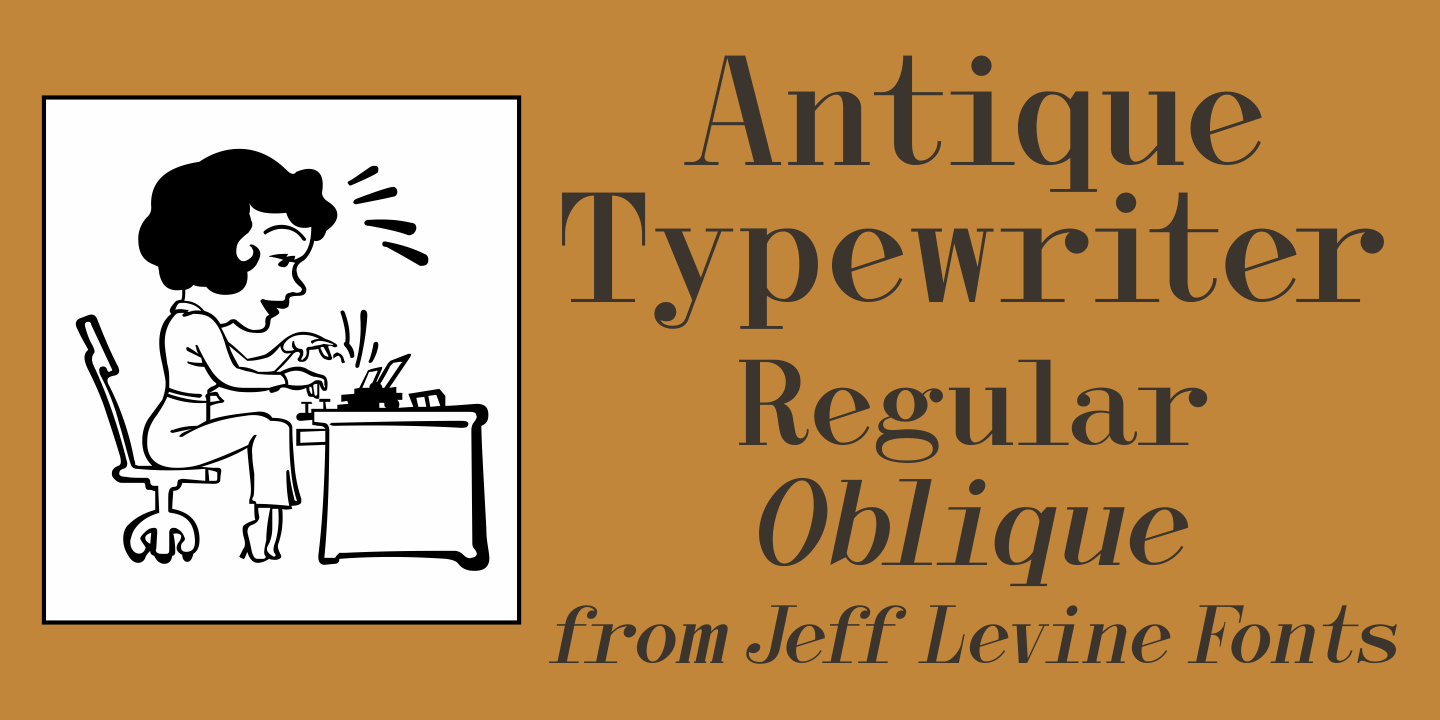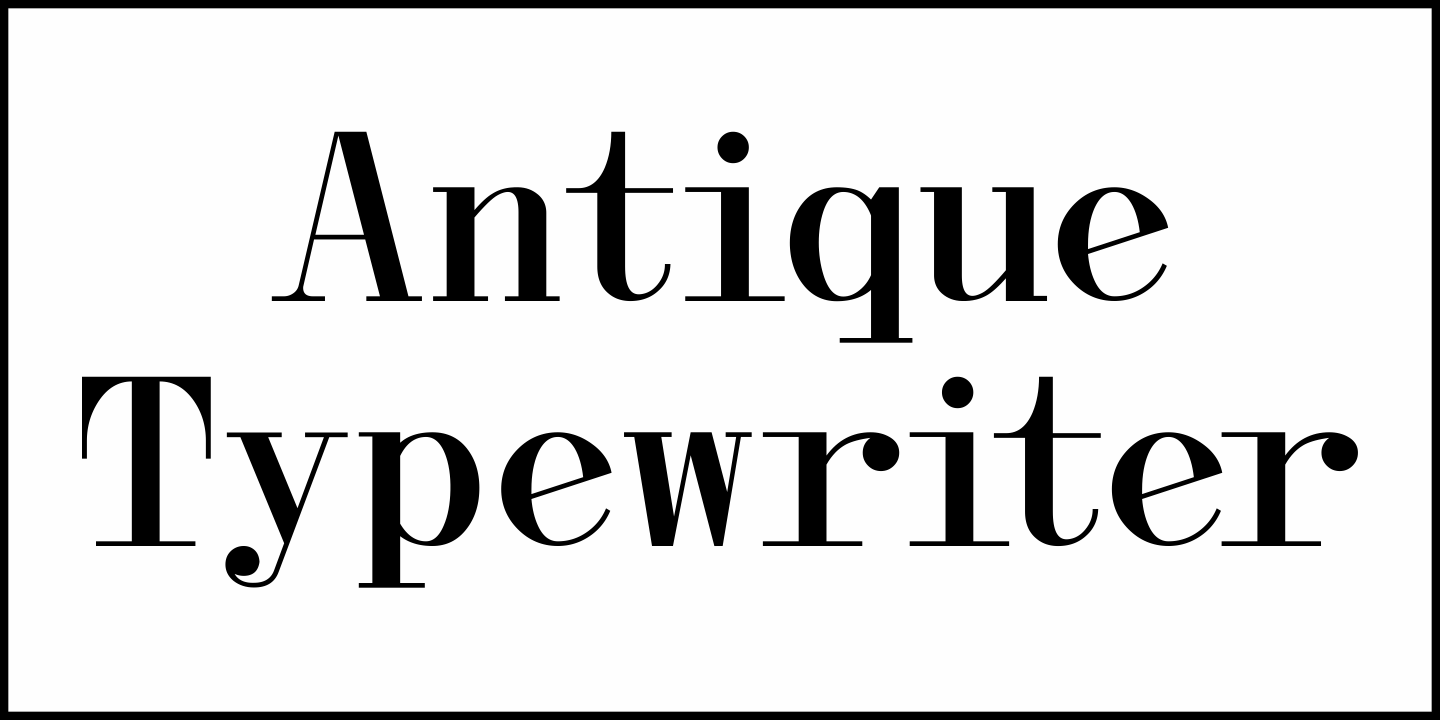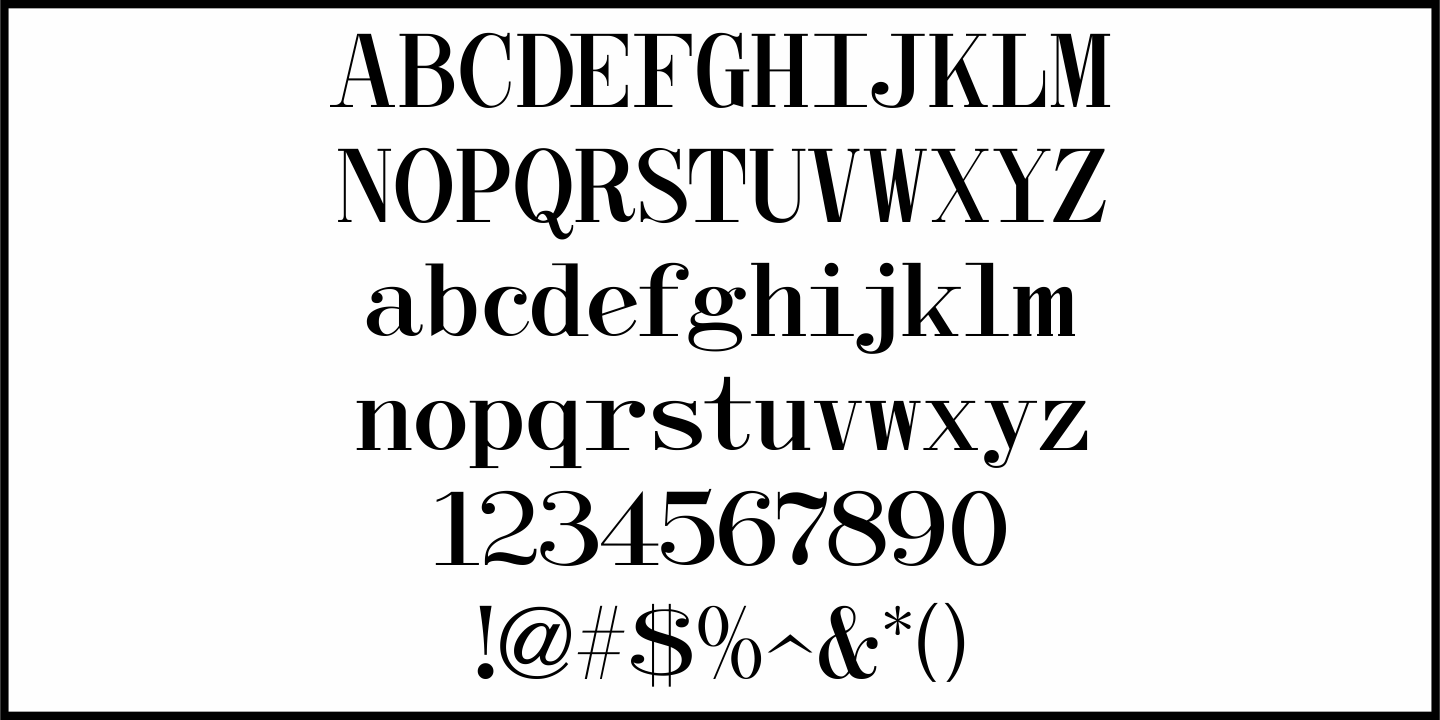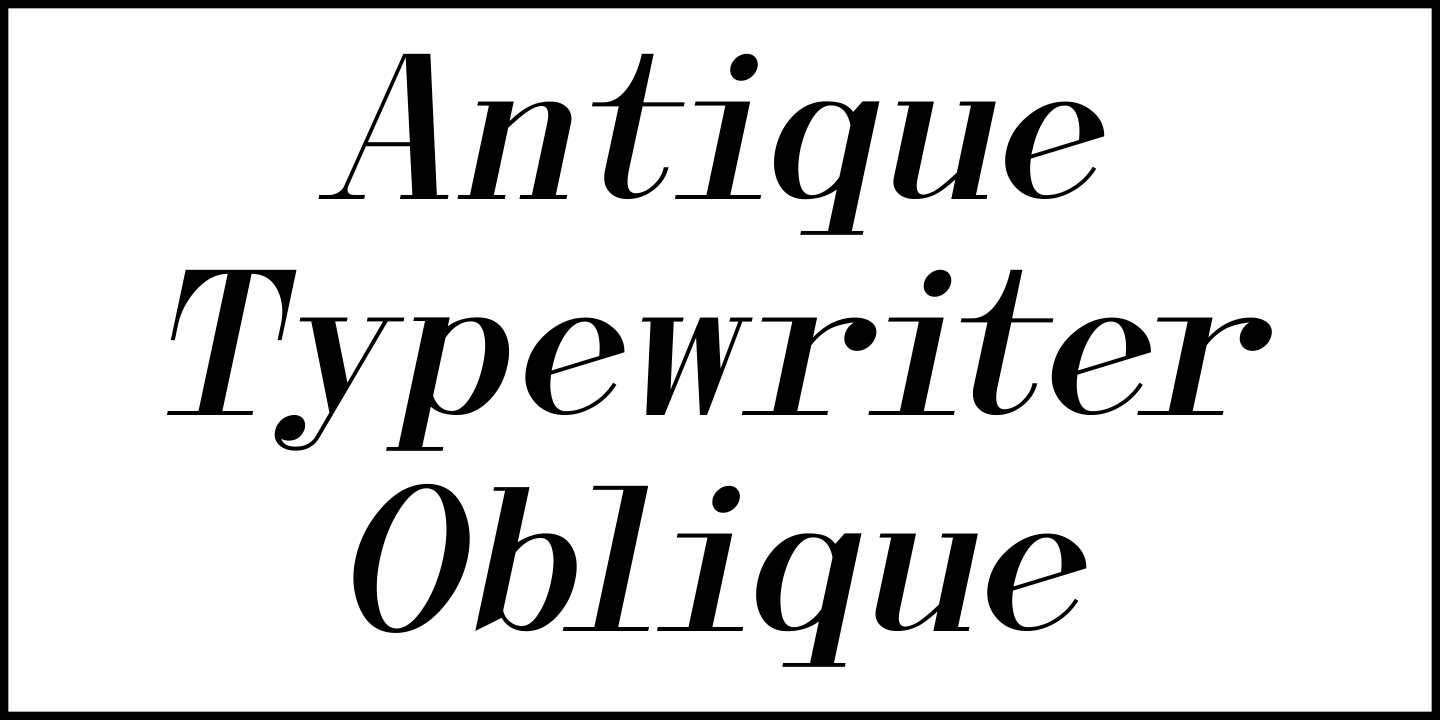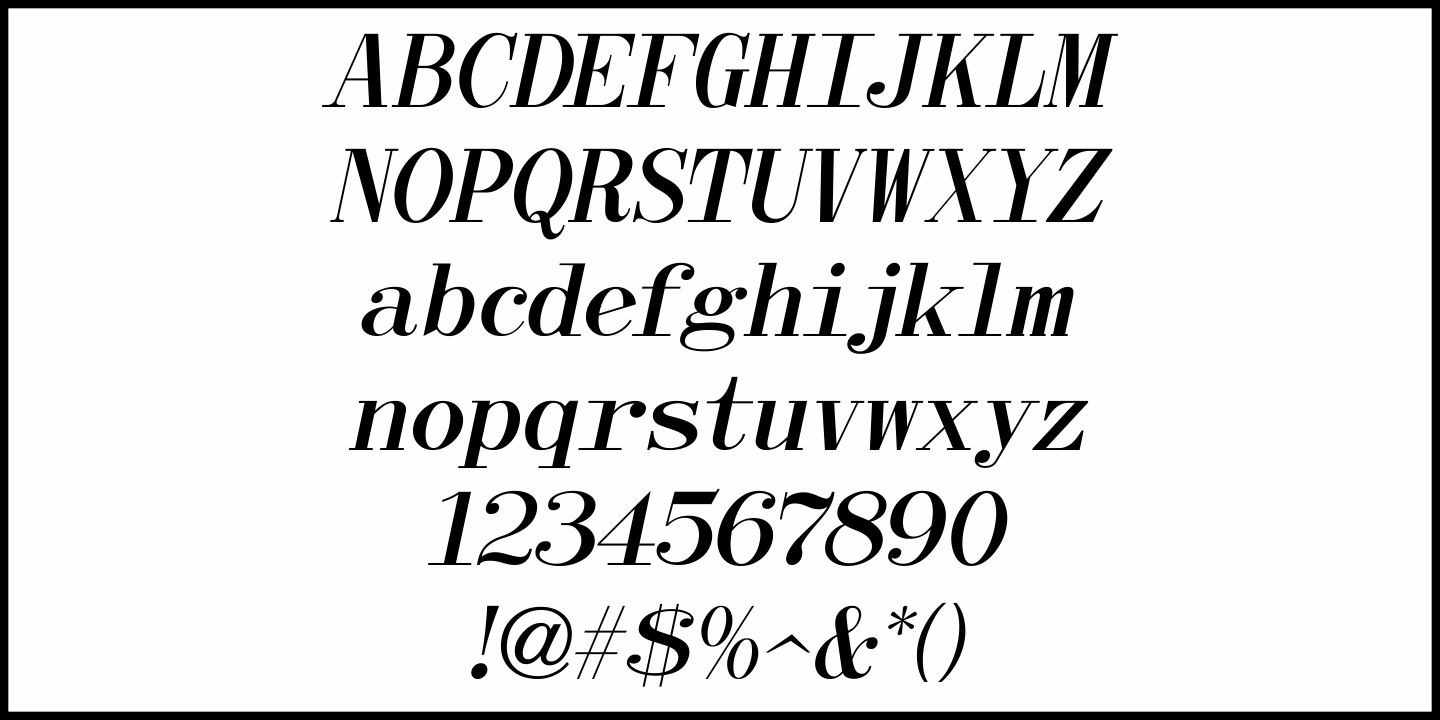
Antique Typewriter
“Victoria Underwood” was found within the pages of the 1923 American Type Founders specimen book. It was one of many printing fonts faithfully replicating those used on various makes and models of actual typewriters.
The purpose of such type was to allow mass production of letters or notices that could appear personalized rather than shop printed.
Antique Typewriter JNL is the digital version of this design, and is available in both regular and oblique versions.